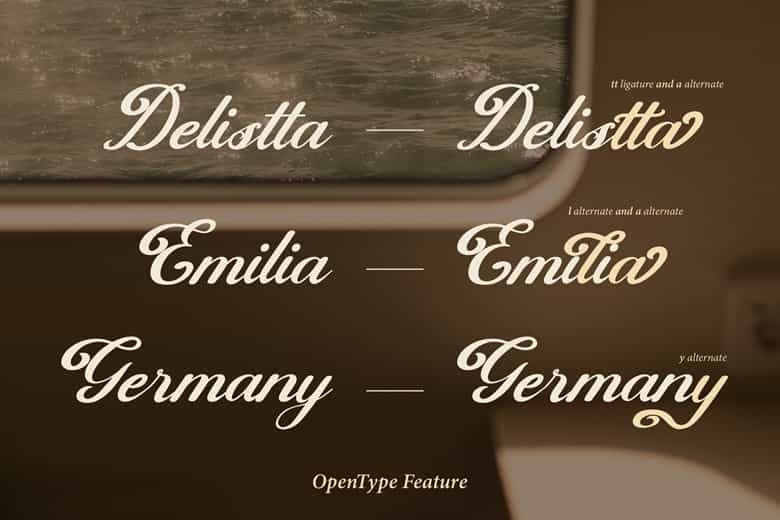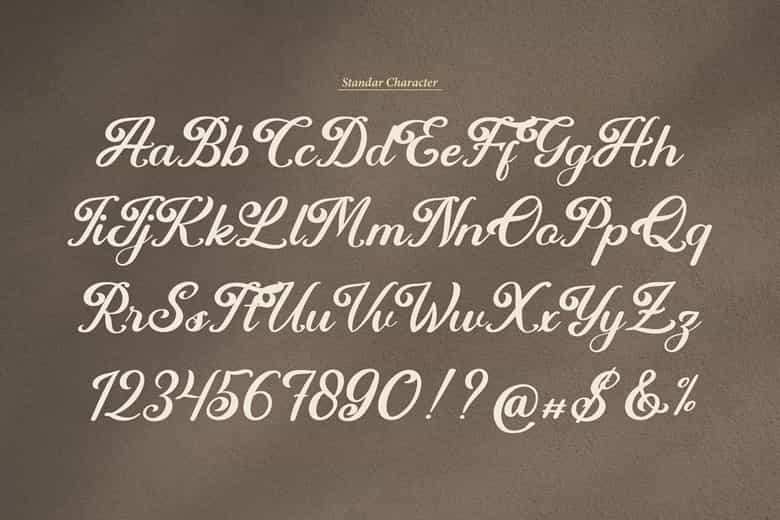
Famlyn Molteno is a beautiful handwritten script font with smooth and elegant lines of letters that seem like handwritten. It has a beautiful and intimate look, ideal for giving a special, artistic touch to such projects as call, greeting cards or logos.